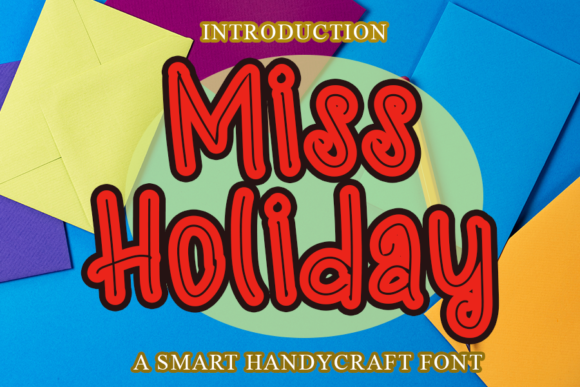
**Introducing Miss Holiday Font: Unleash Your Creativity with a Dash of Urban Flair**
Prepare to be swept off your feet by the captivating allure of Miss Holiday Font, a vibrant display typeface that radiates an enigmatic urban spirit. This extraordinary font, meticulously crafted by the talented Merge354, is more than just a collection of letters and symbols; it's a gateway to a world of boundless creativity.
Miss Holiday Font is a true masterpiece, designed to ignite your imagination and elevate your designs to unprecedented heights. Its playful curves and bold strokes evoke a sense of carefree abandon, making it the perfect choice for casual designs that demand a touch of individuality. Whether you're creating eye-catching posters, designing captivating social media posts, or crafting unique branding materials, Miss Holiday Font is your ultimate creative companion.
But what truly sets Miss Holiday Font apart is its versatility. This remarkable font effortlessly adapts to a myriad of design styles, from playful and whimsical to sophisticated and elegant. It's the perfect choice for those who seek a font that can effortlessly transition from playful invitations to professional presentations. With Miss Holiday Font at your disposal, you'll never be confined to a single design aesthetic; instead, you'll be empowered to explore the full spectrum of your creativity.
**Key Features of Miss Holiday Font:**
* Enchanting display font with an urban edge
* Perfectly suited for casual designs that demand attention
* Versatile enough to complement a wide range of design styles
* Ideal for posters, social media graphics, branding, and more
* Designed by the renowned Merge354, ensuring exceptional quality
**Benefits of Using Miss Holiday Font:**
* Elevate your designs with a touch of urban flair
* Unleash your creativity with a font that knows no bounds
* Adapt effortlessly to various design aesthetics
* Create designs that captivate and leave a lasting impression